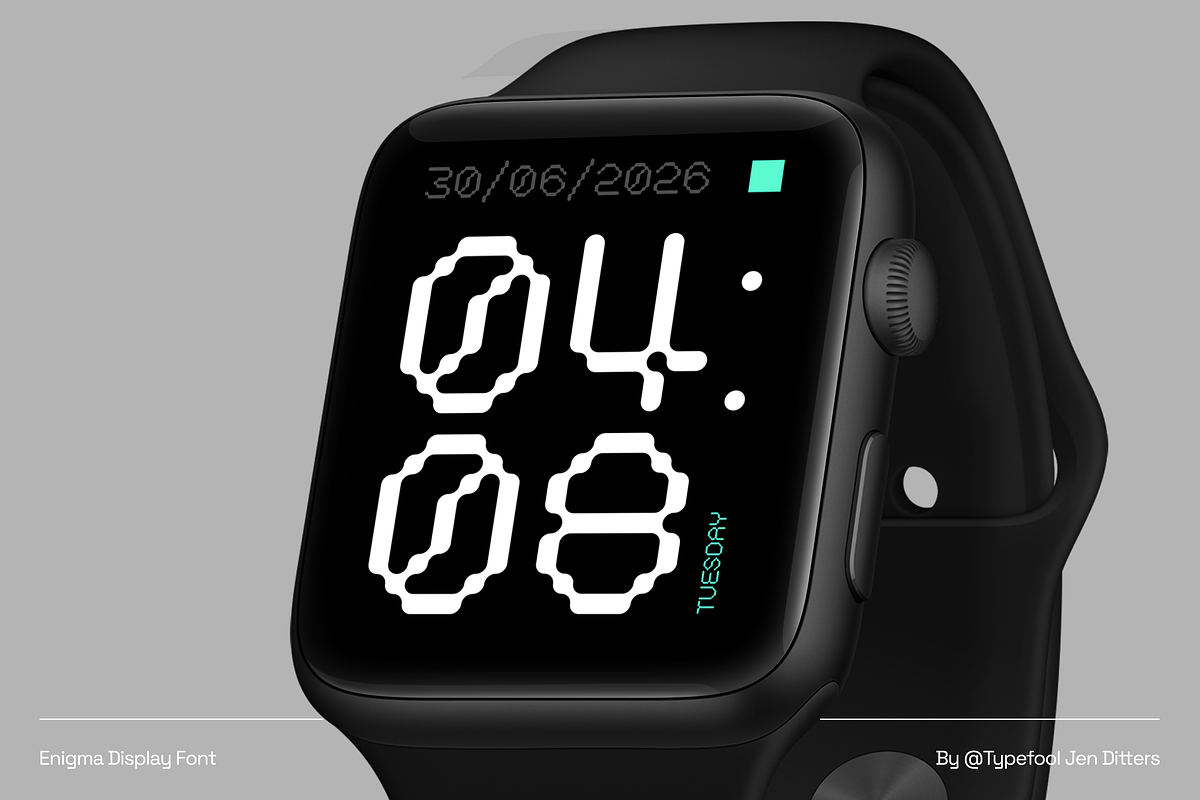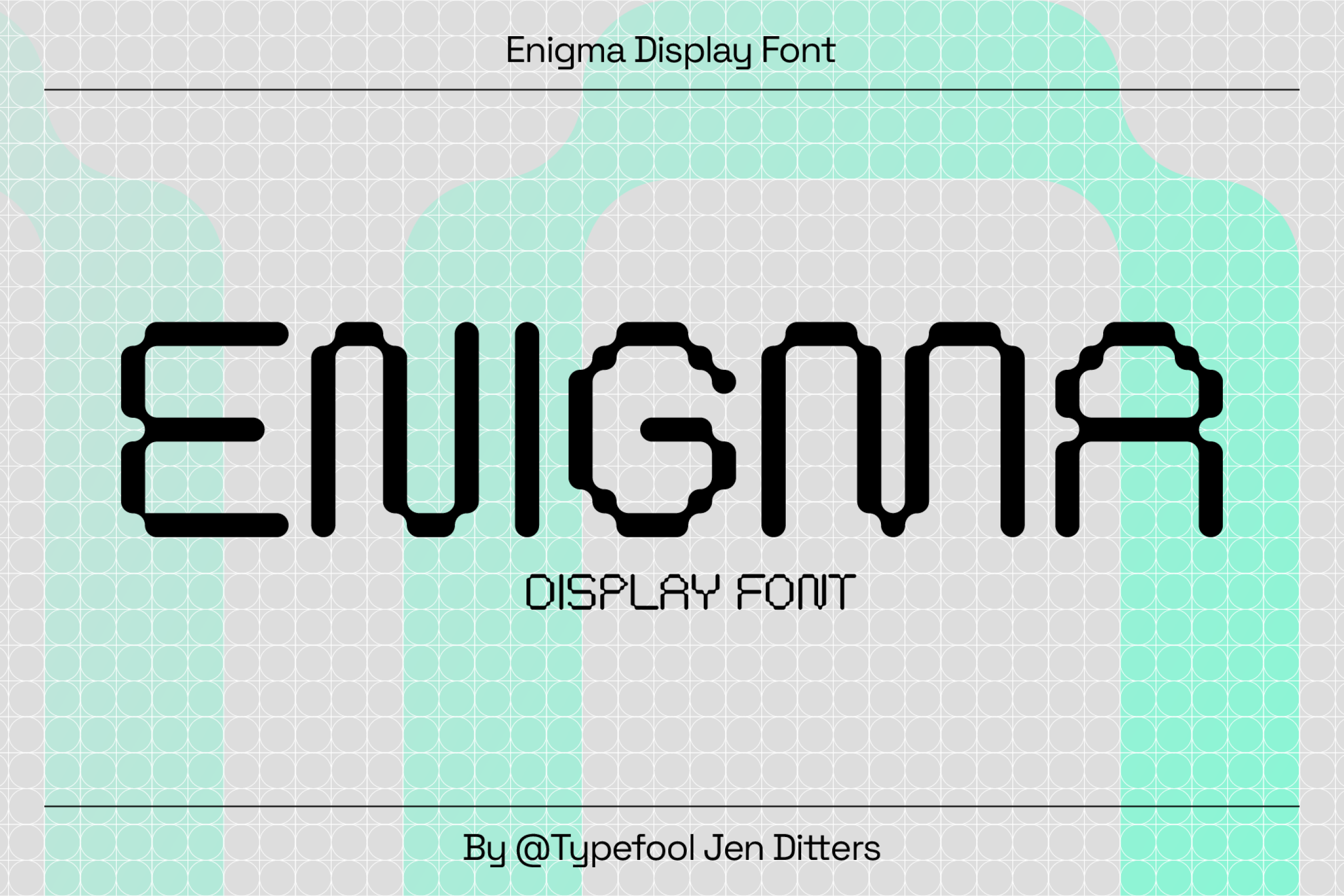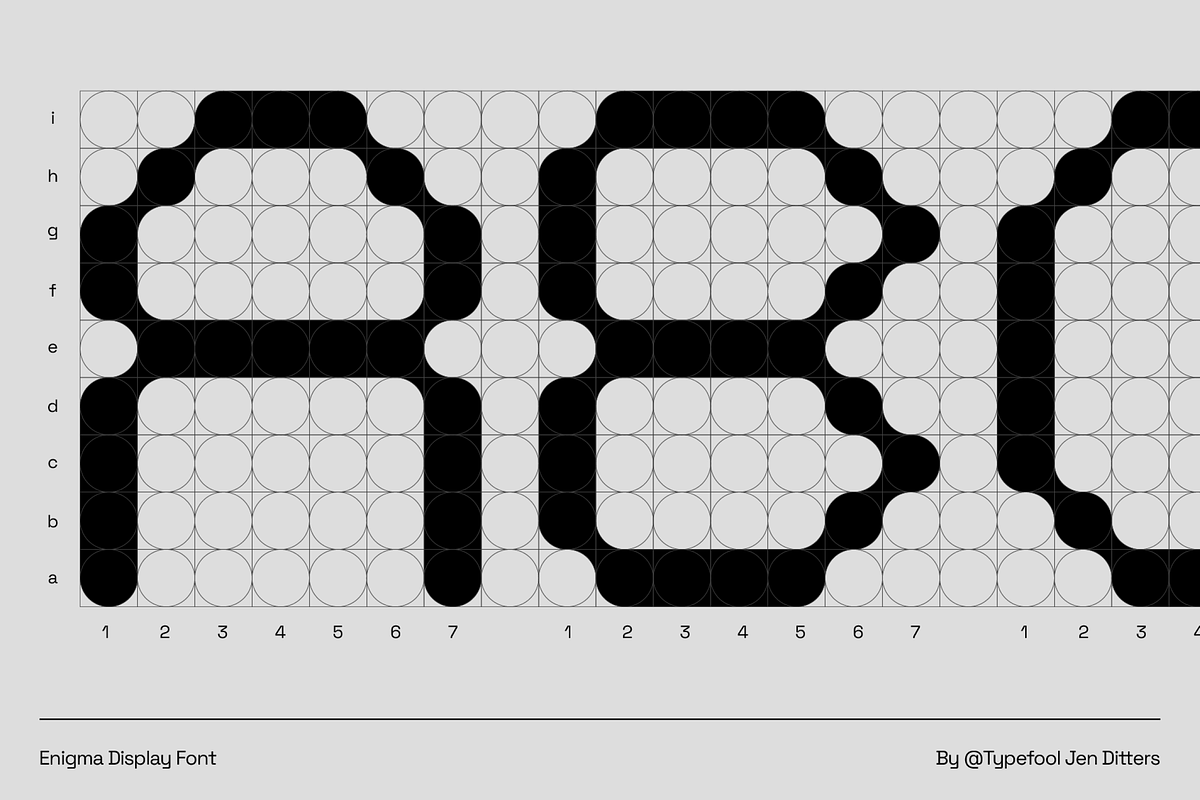
Enigma | Display Font
Introducing Enigma, a progressive modern sans serif display font.
Enigma has a modern fresh digital look with rounded corners, built from a grid of 9 by 7 blocks and circles, this grid makes it innovative and lends itself perfectly for applications of new developments and progressive brands.
It's great for headlines and titles but is also very legible in sentence case.
It works great for branding and Packaging, Headers, Quotes, New products and anything where you want a modern and innovative vibe.